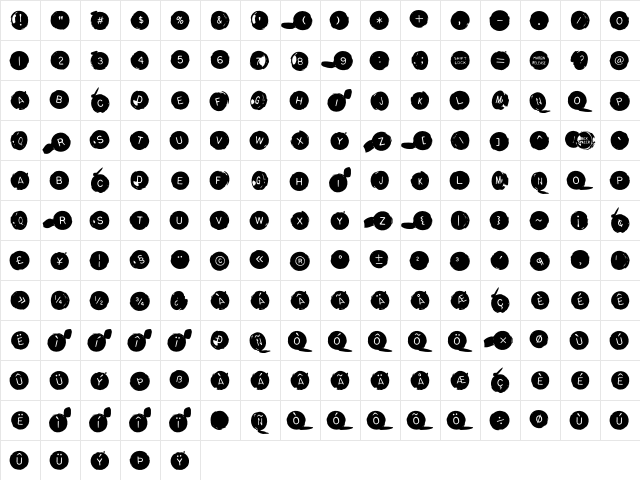
BackspacerRound Medium Font Preview
BackspacerRound Medium
BackspacerRound Medium Font Details
Design Context for BackspacerRound Typeface
BackspacerRound softens its letterforms with rounded terminals, giving it an approachable, friendly quality that works well in consumer-facing and digital contexts.
Well-suited to UI design, mobile interfaces, and any brand that wants approachability without sacrificing clarity.
Font Pairing: Pairs well with a rounded or humanist sans for body copy, maintaining the friendly tone without relying on BackspacerRound to carry extended reading.
Pro Tip: Use BackspacerRound for UI elements, app interfaces, and anywhere a friendly, approachable tone needs to be maintained without sacrificing clarity.